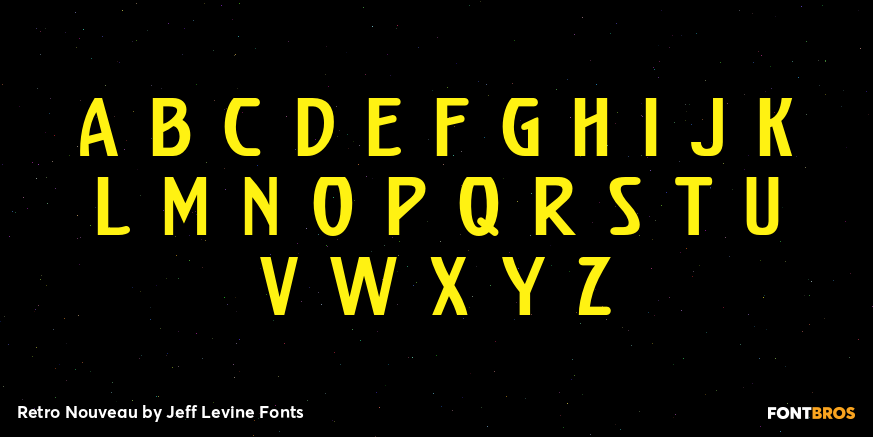
Retro Nouveau
Because of the large influx of Irish immigrants during the late 1800s and early 1900s, it was not unusual for songwriters of the day to craft songs around Irish themes, offering a nostalgic link to their homeland.
One such 1917 piece entitled 'You Brought Ireland Right Over to Me' had the title hand lettered on the sheet music cover in a sans serif design reflecting the popular Art Nouveau movement of the day.
This design is now available digitally as Retro Nouveau JNL, in both regular and oblique versions.